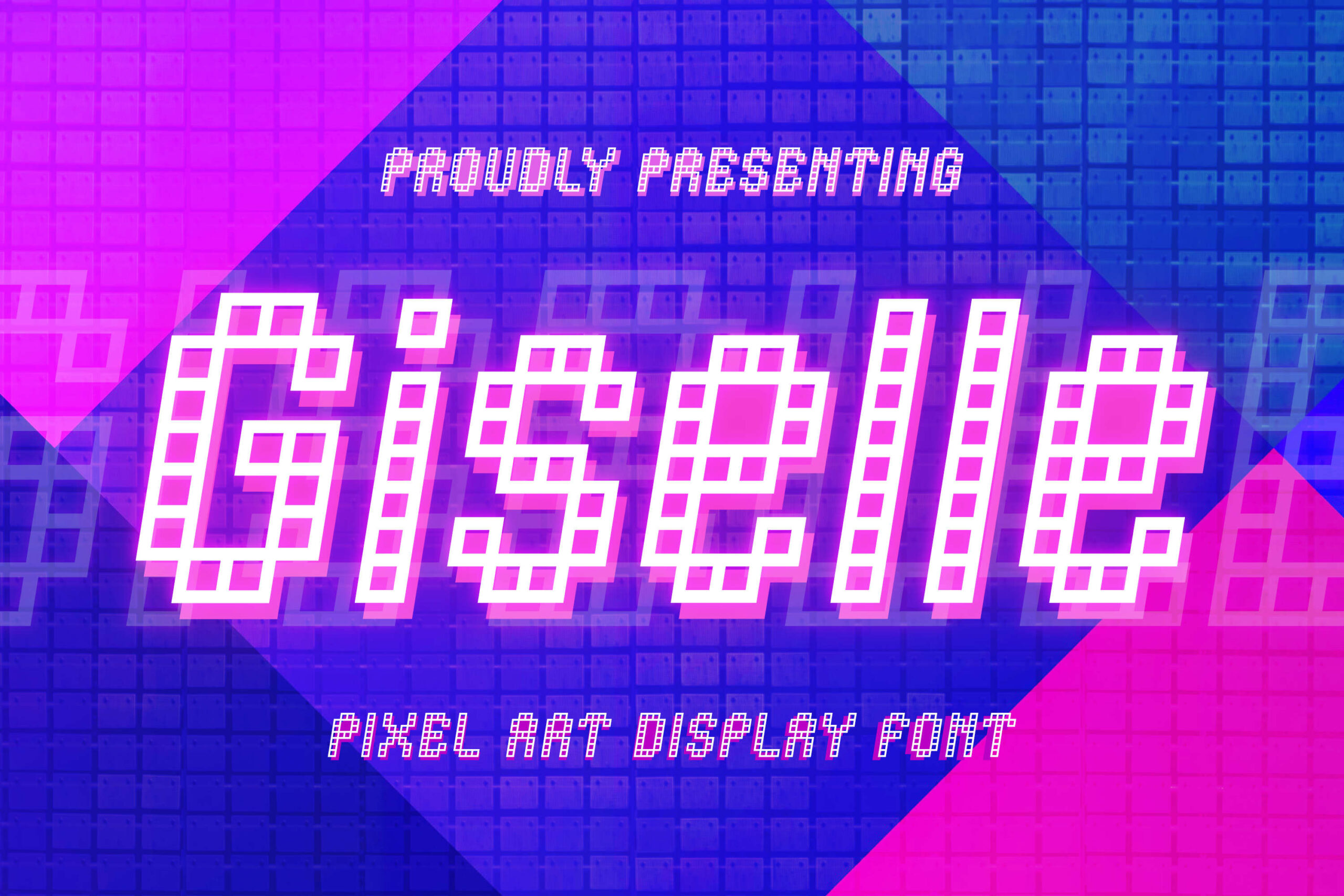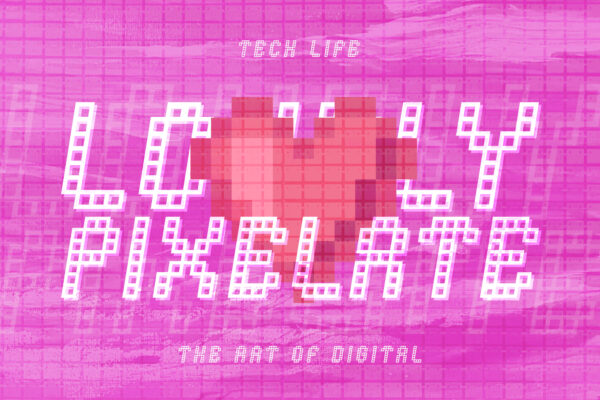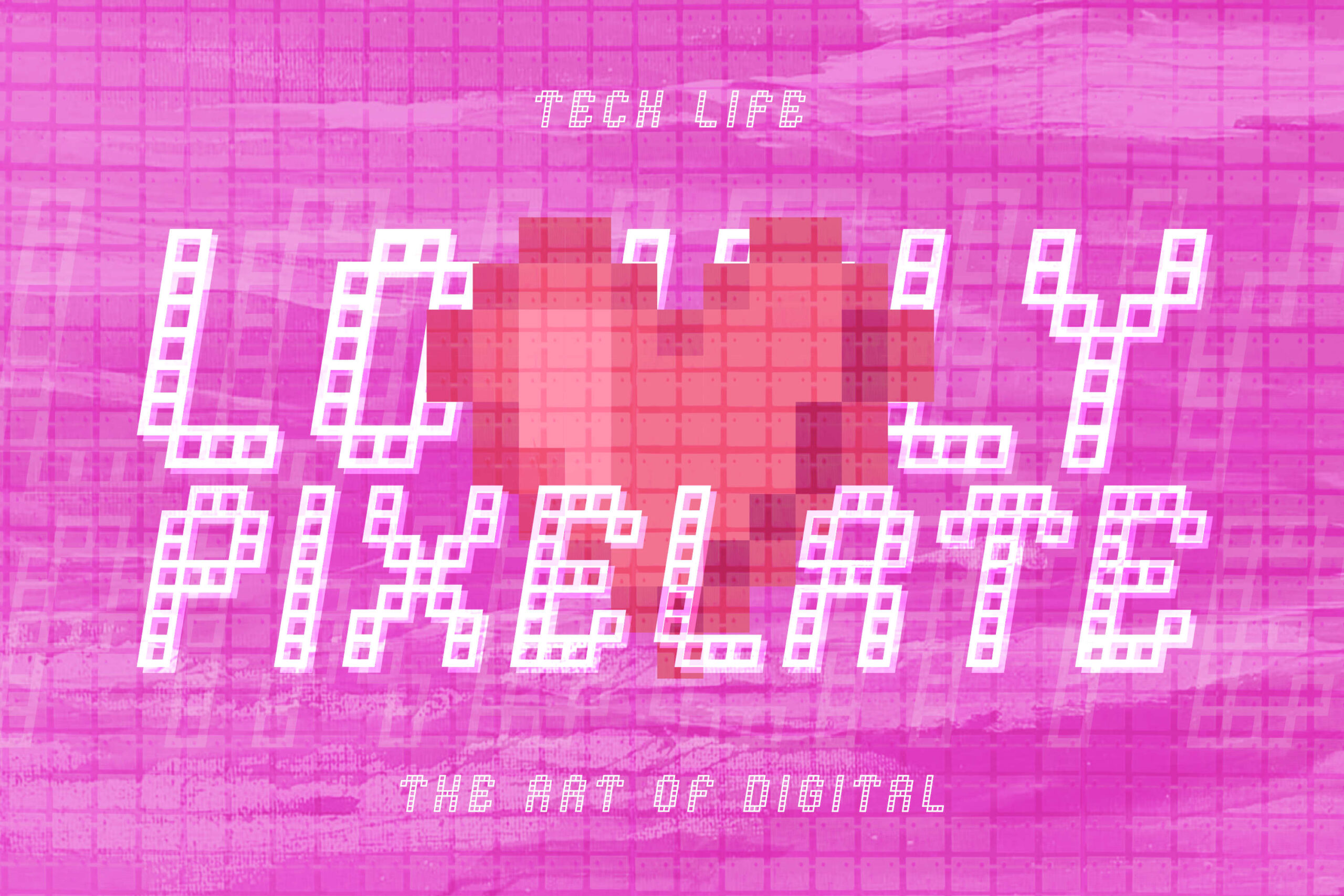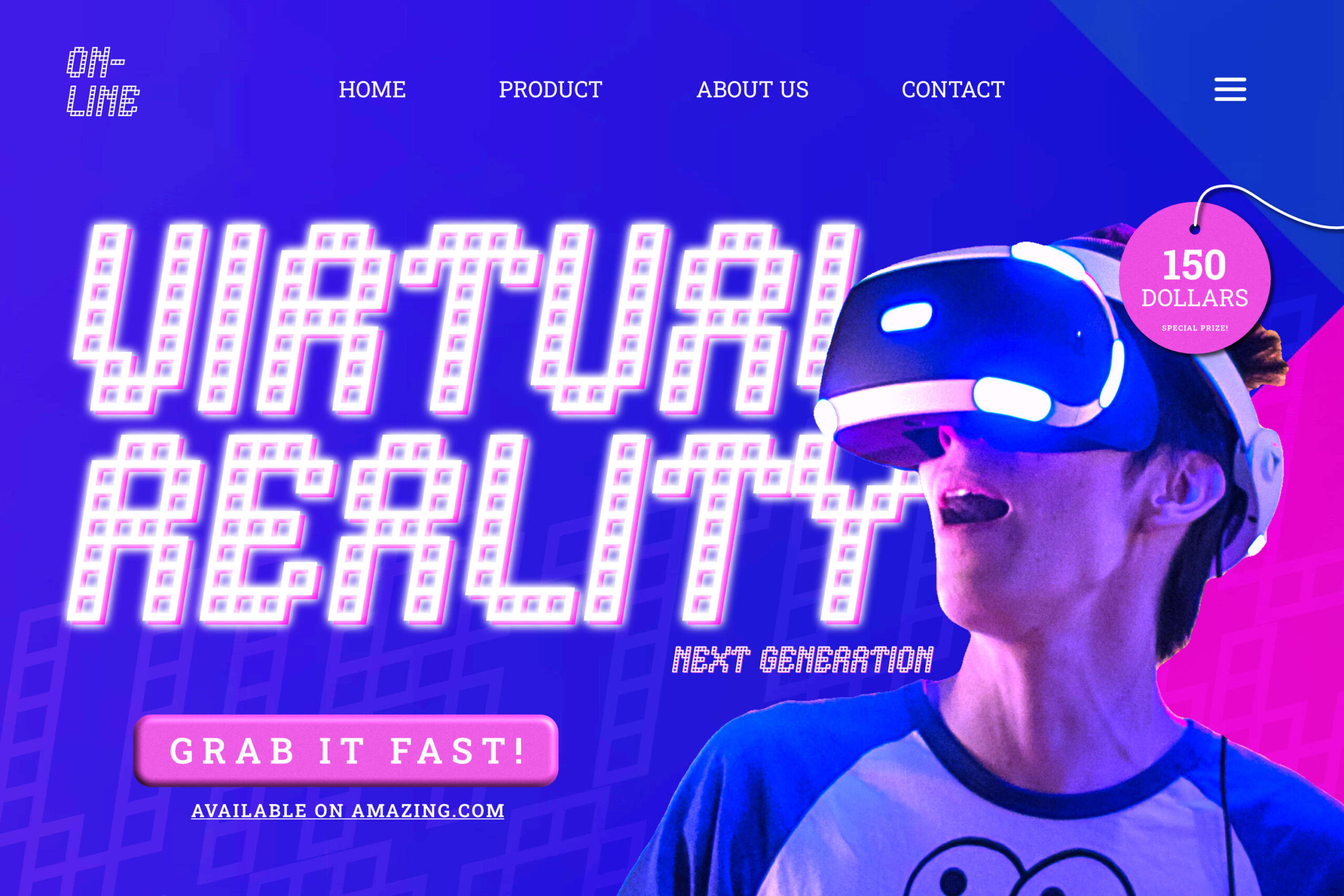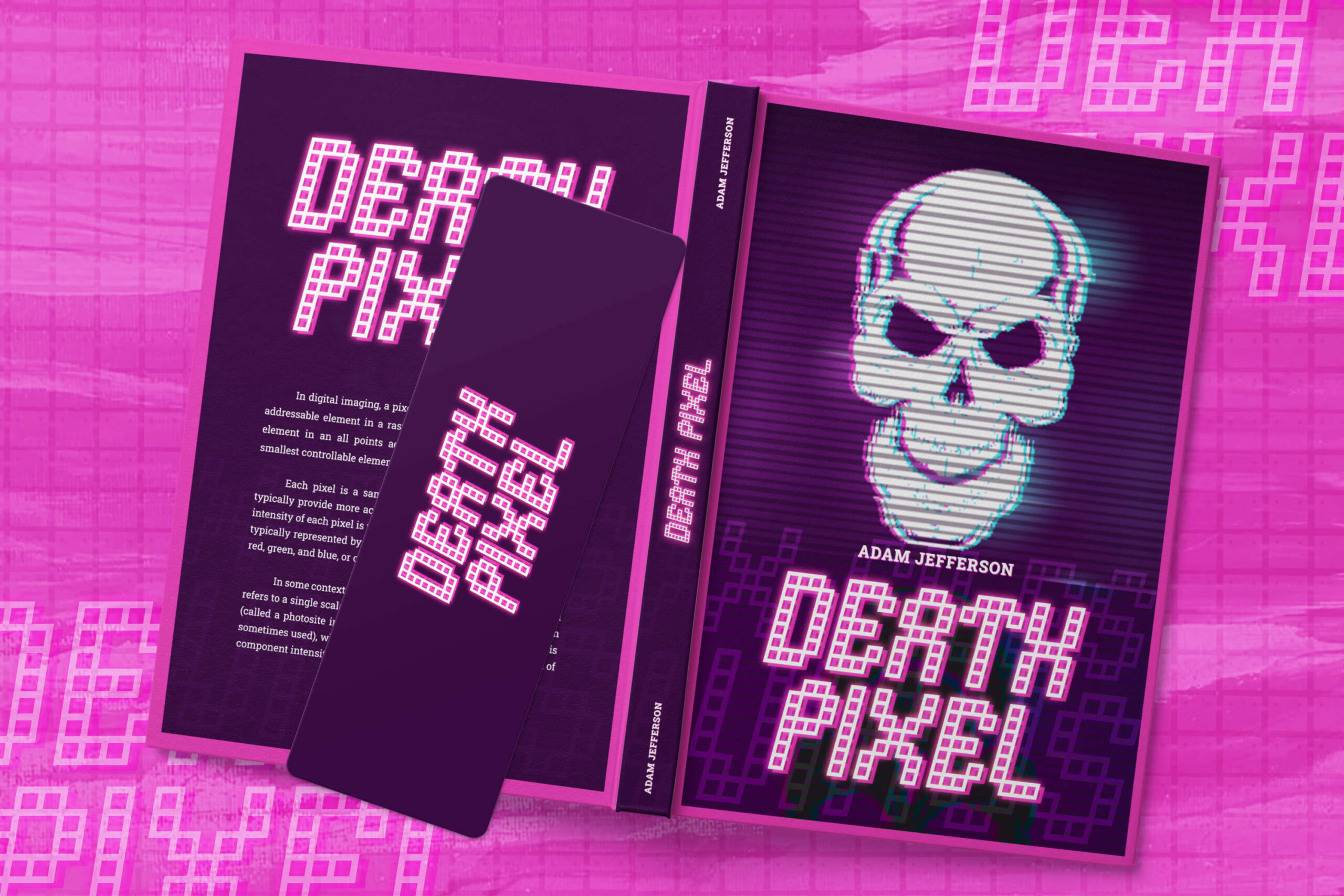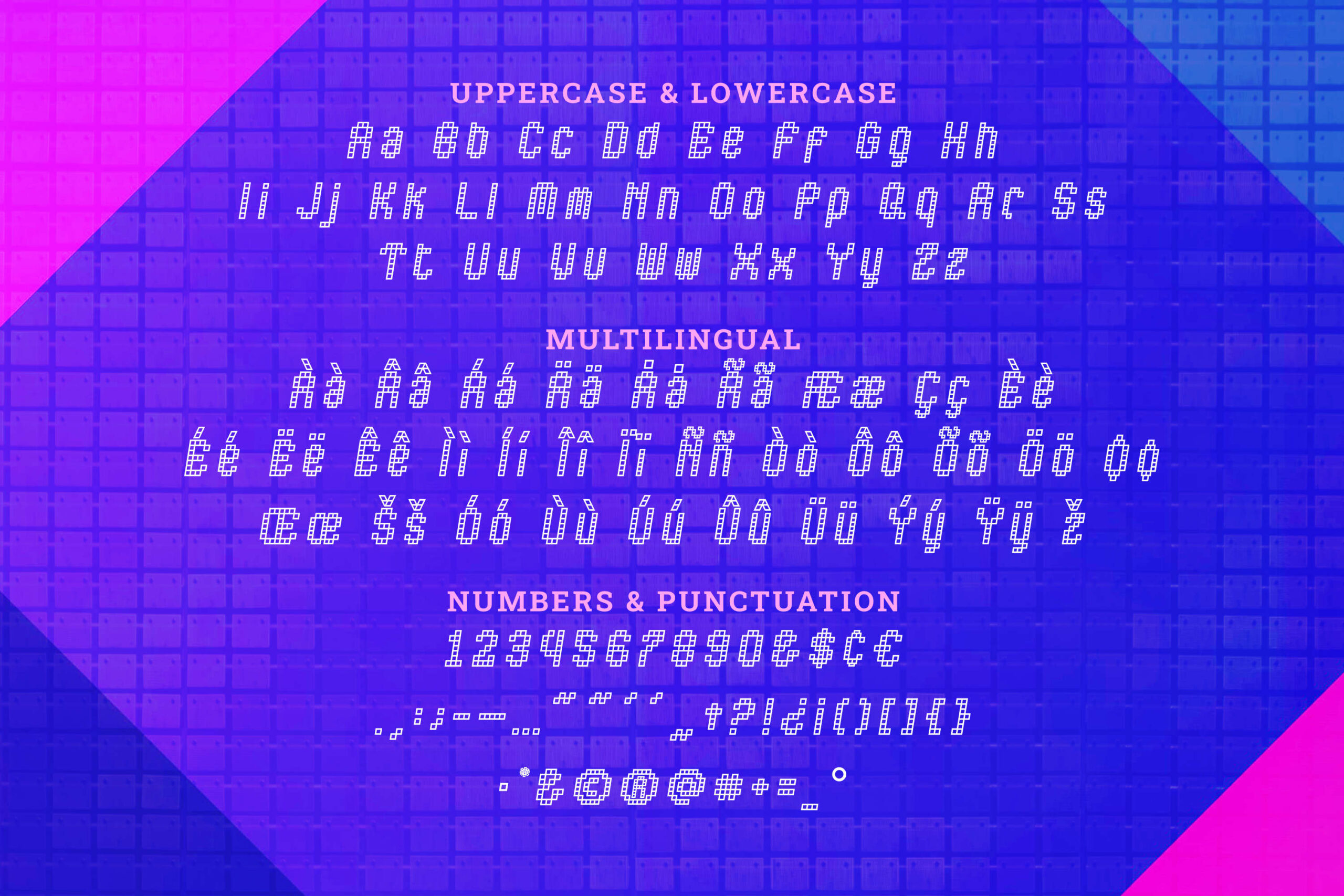
Giselle is a playful and futuristic pixel display font inspired by retro arcade aesthetics and digital art culture. With its modular square-outline structure and high-contrast glowing effect, Giselle brings a unique charm to your tech-forward visuals. Perfectly suited for neon posters, gaming titles, VR interfaces, and pixel art projects, this typeface delivers strong personality while remaining highly readable across all screen sizes.
This font comes with uppercase, lowercase, numbers, punctuation, and multilingual support, giving you versatility in every digital design scenario. Whether you’re launching a virtual event, building a gaming brand, or designing edgy web banners, Giselle is your go-to font for capturing nostalgic tech energy with a modern twist.
Giselle